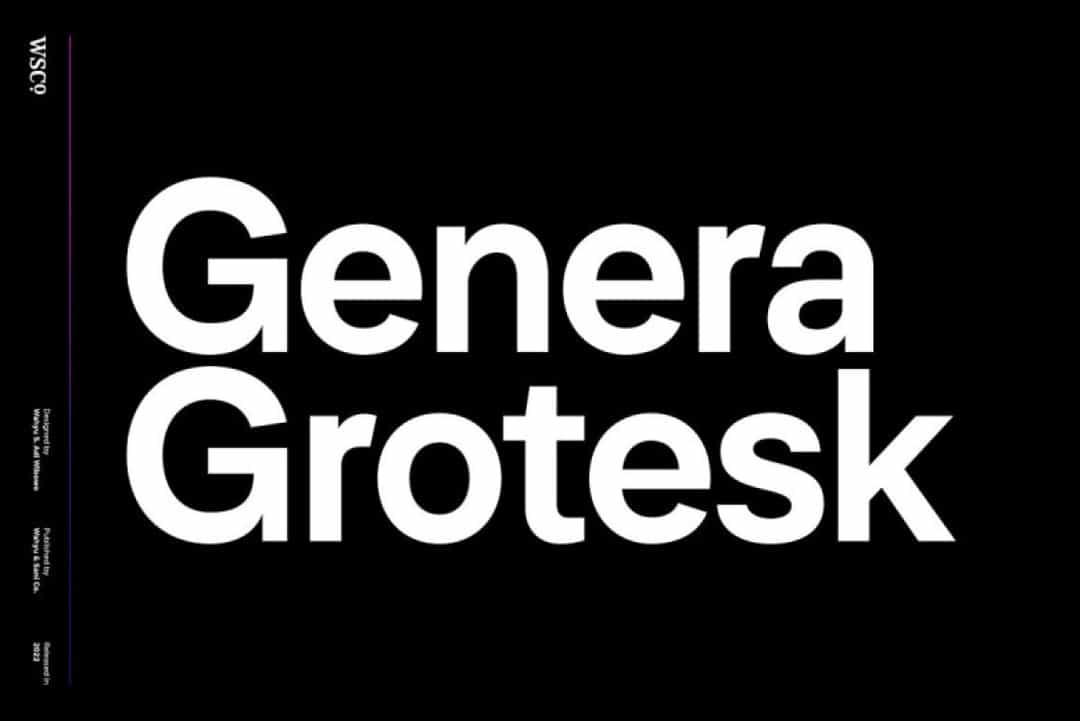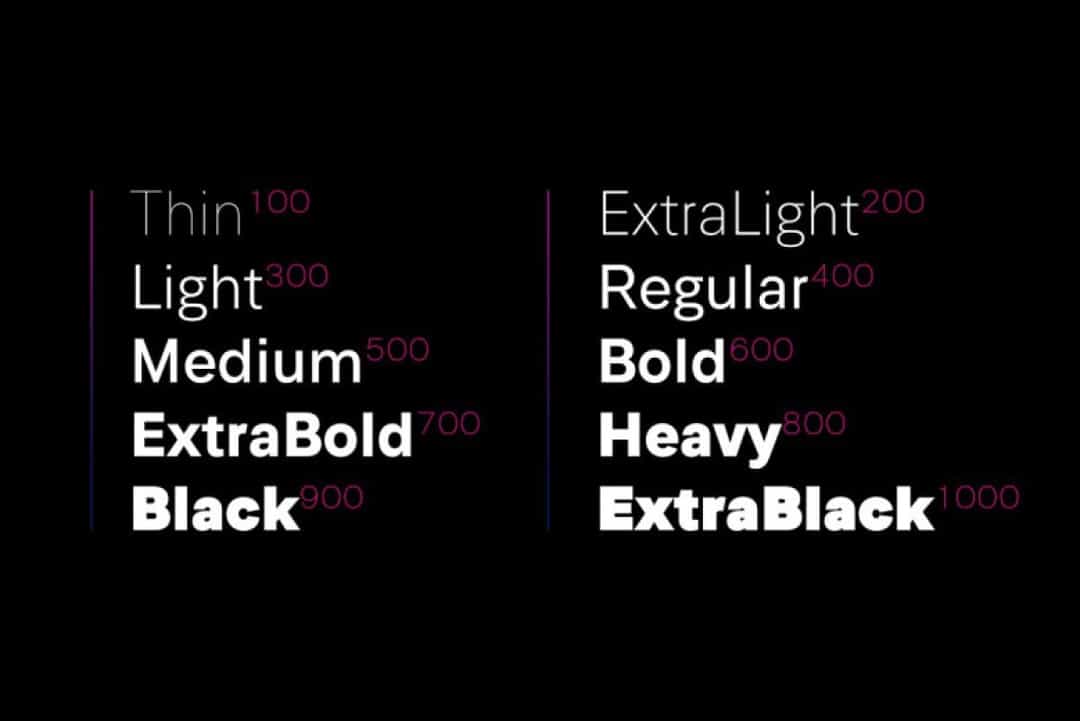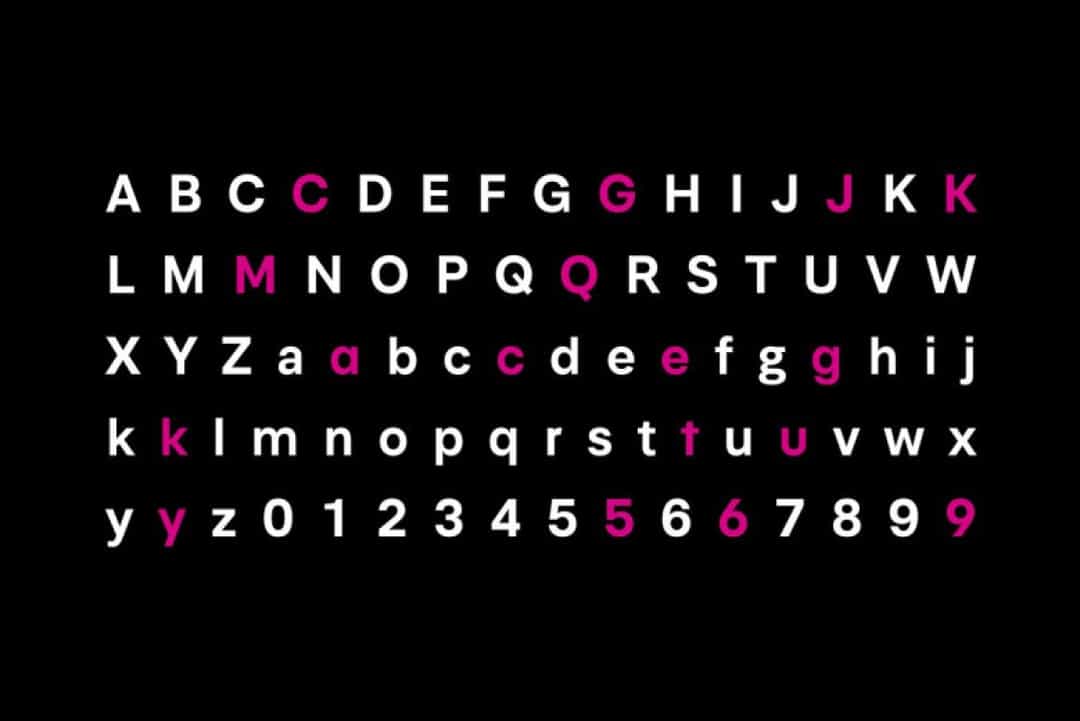
Genera Grotesk font family is an innovative and modern, clean sans serif font family that was unveiled late in 2019. A complete revision of Genera typeface, Genera Grotesk now comes equipped with increased aperture size, brand new letterforms, an italic style and weight distribution ranging from Thin through Extra Black. Additionally, Genera Grotesk comes available in multiple font options to provide greater freedom when choosing its weight distribution.